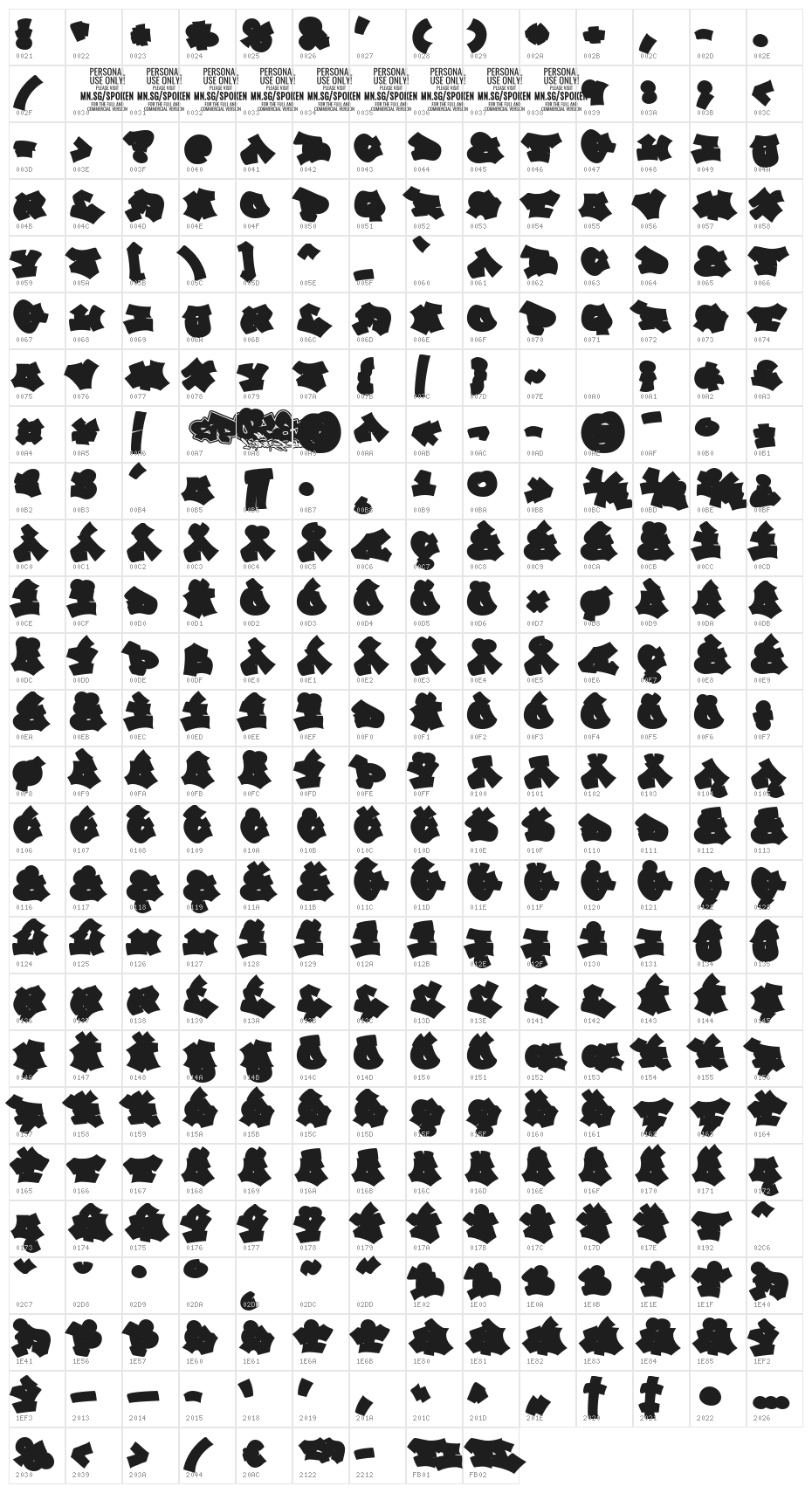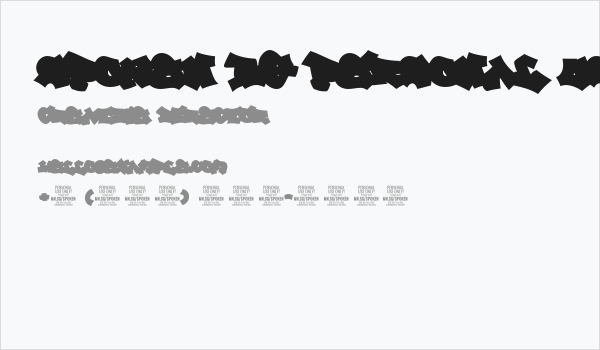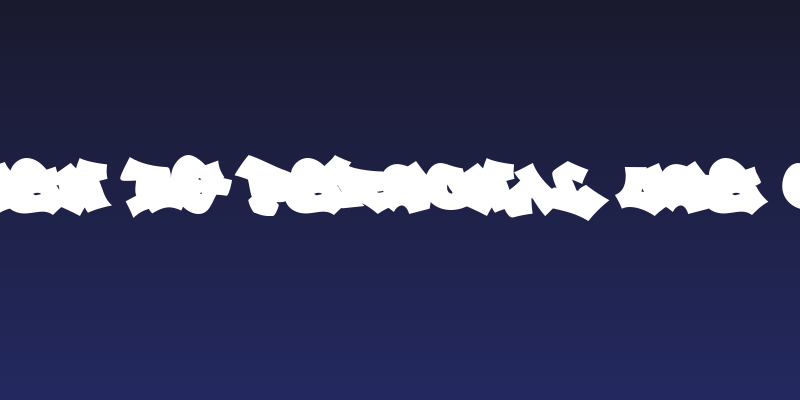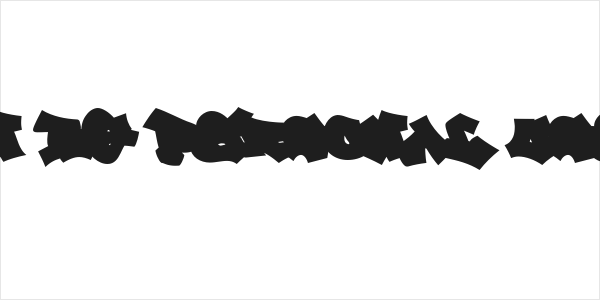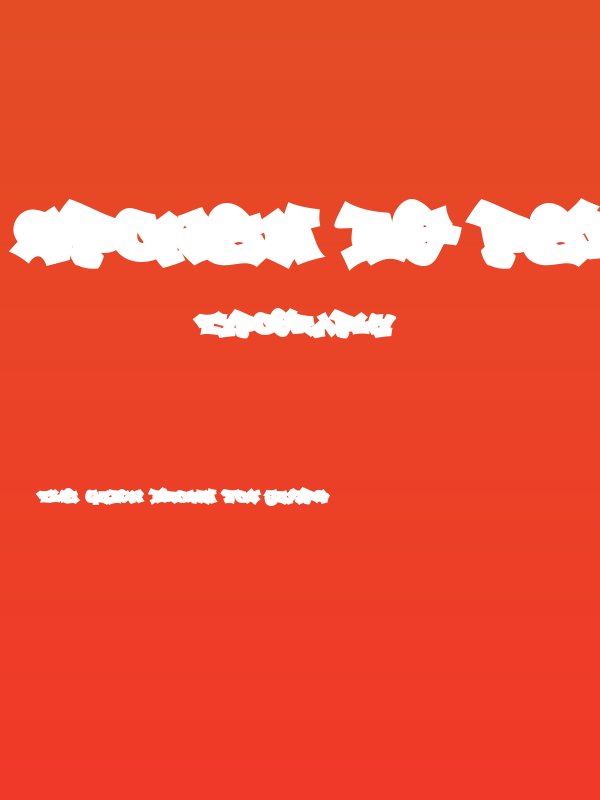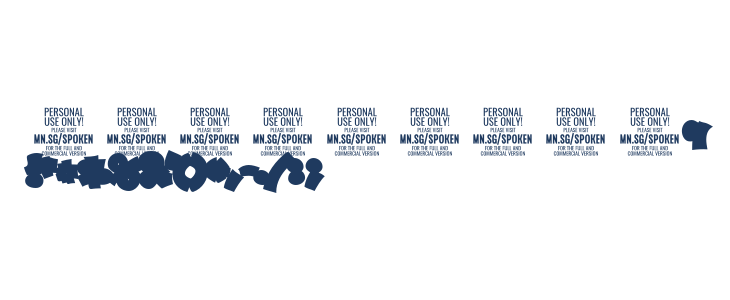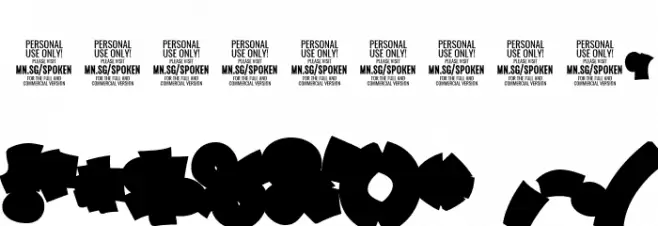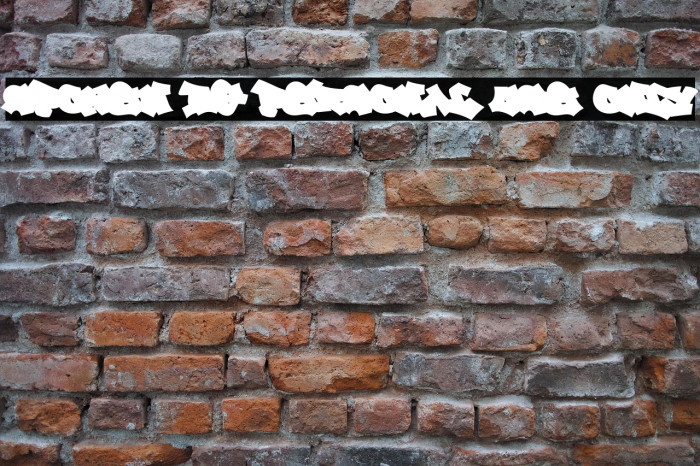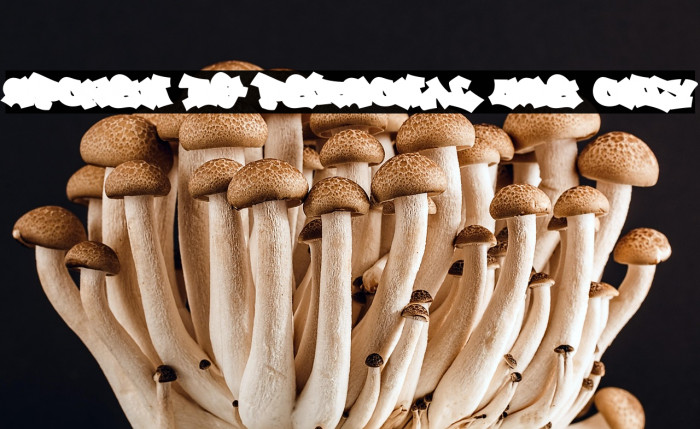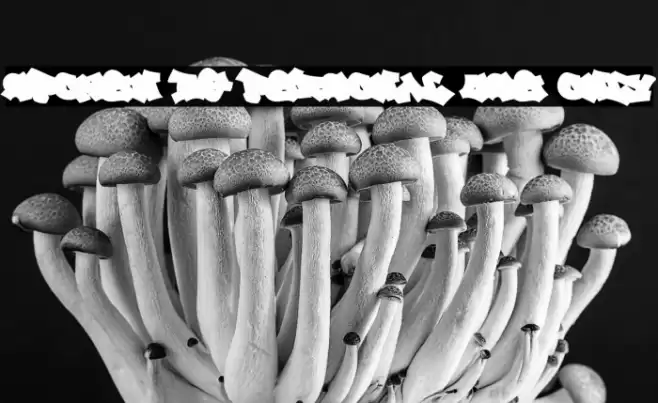
Spoken BG PERSONAL USE ONLY Font
Spoken BG PERSONAL USE ONLY Description
This font features a bold, graffiti-inspired style with exaggerated, jagged edges and a dynamic, urban aesthetic. The characters are highly stylized, with a sense of movement and energy that captures the essence of street art. The uppercase and lowercase letters maintain a consistent design, with each character appearing as if it has been spray-painted. The numbers and special characters follow the same artistic theme, adding to the cohesive look of the font. This font is ideal for projects that aim to convey a sense of rebellion, creativity, and modern urban culture.
| Overall Style | Modern, Urban, Graffiti |
| Use Case | Logos, Posters, Headlines |
| Proposed Projects | Street art designs, urban-themed posters, music album covers, graffiti art projects. |